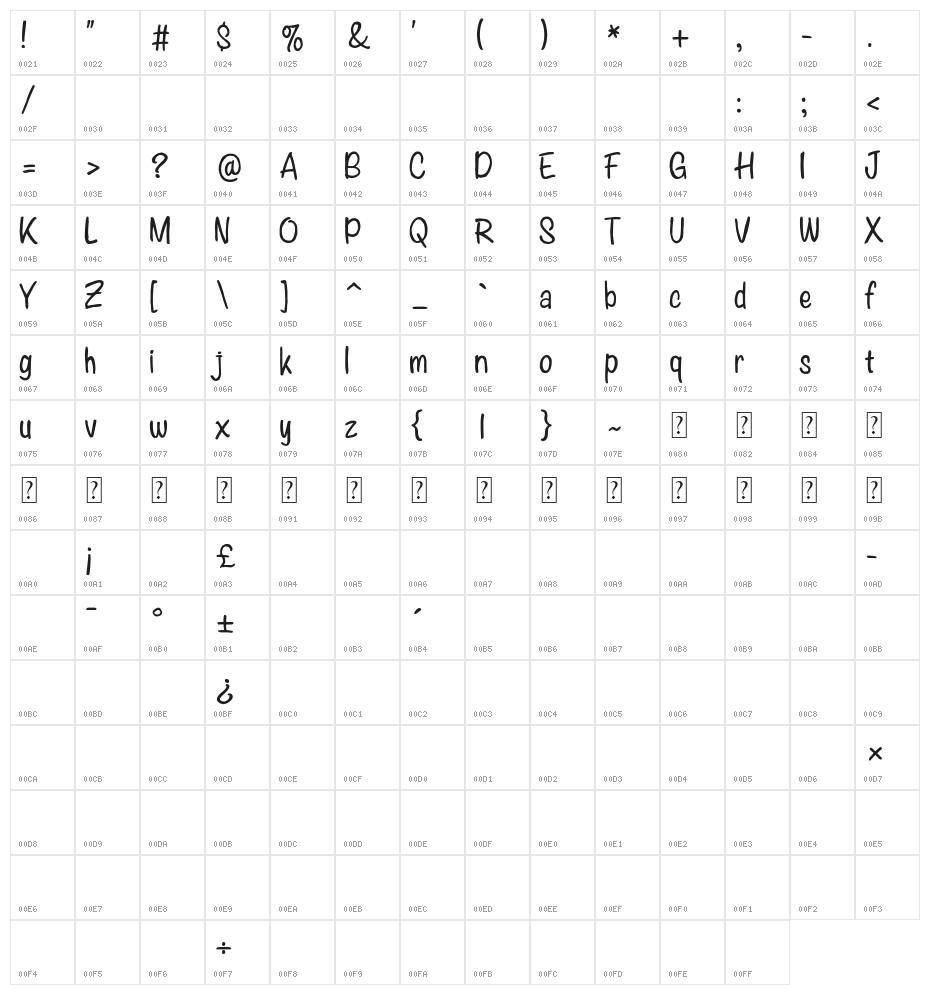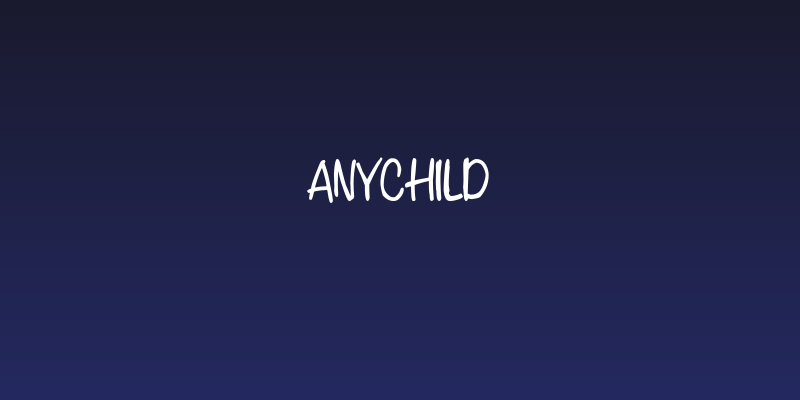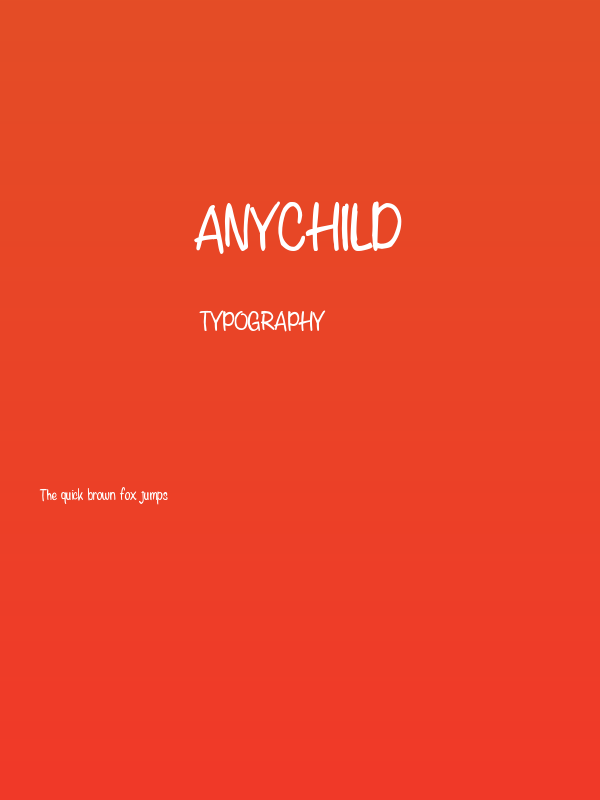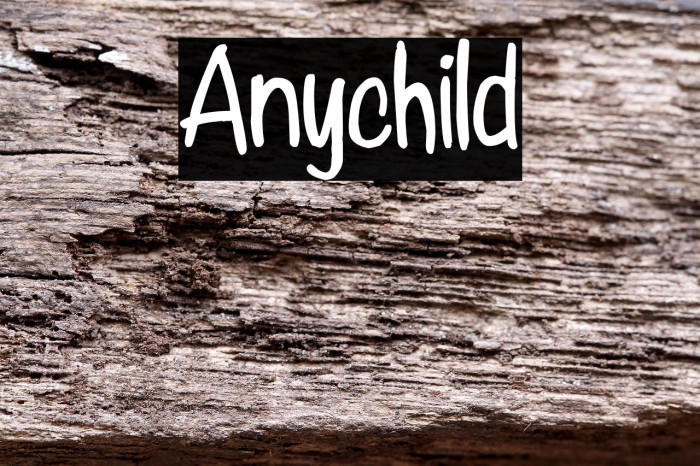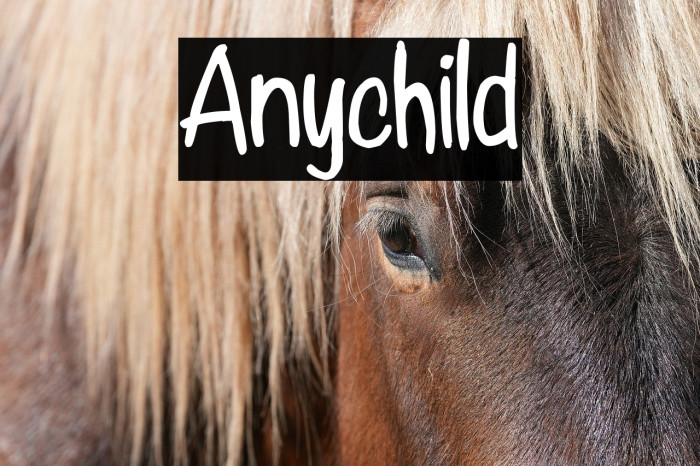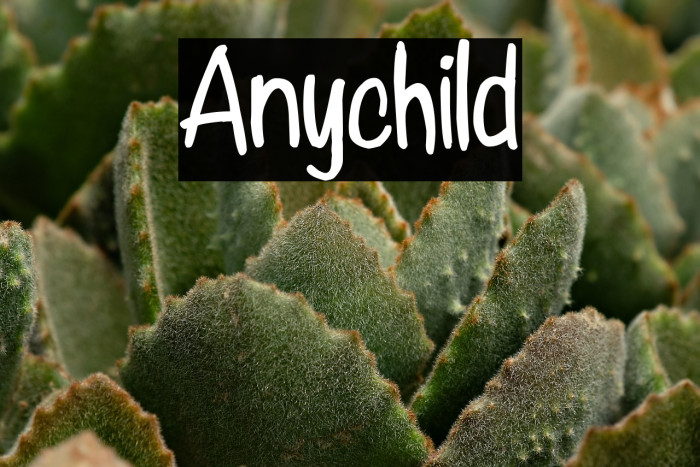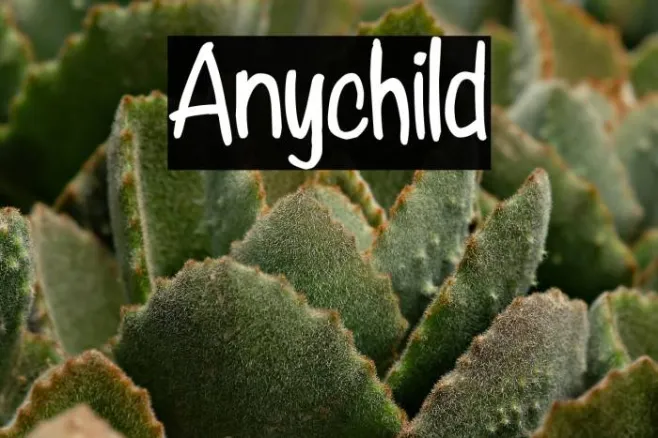
Anychild Font
Anychild Description
This font exudes a playful and casual handwritten style, characterized by its smooth, rounded strokes and slightly irregular letterforms. The uppercase and lowercase letters maintain a consistent flow, giving a sense of movement and energy. The characters are well-spaced, providing a balanced and readable appearance. The font's informal nature makes it suitable for projects that require a personal touch, such as invitations, greeting cards, or children's books. Its unique style can add a friendly and approachable feel to any design.
| Use Case | Headlines, Informal text, Personal projects |
| Proposed Projects | Ideal for invitations, greeting cards, children's books, and personal projects. |